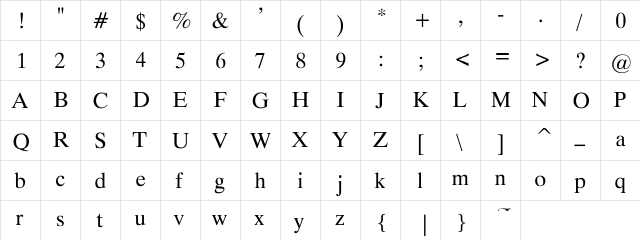
Micro-Tempo Regular
Design Context for Micro-Tempo Typeface
Micro-Tempo offers clean, dependable letterforms without strong stylistic allegiance, making it a practical choice for designers who need flexibility.
Pro Tip: Pair Micro-Tempo with a font of contrasting weight or personality to build a more expressive typographic hierarchy.